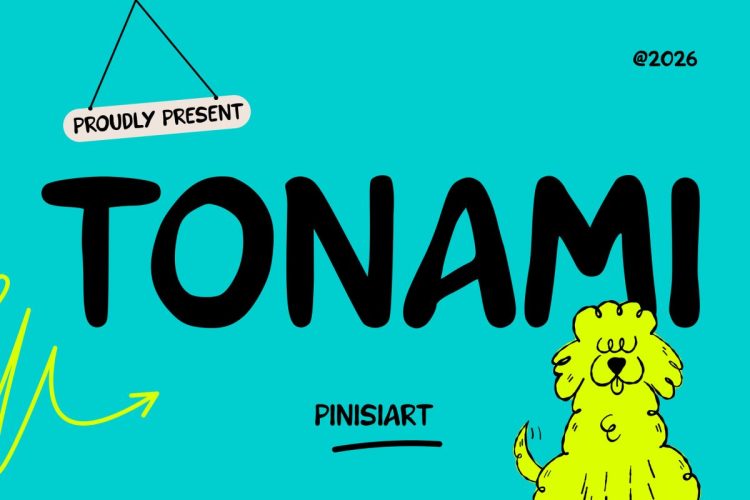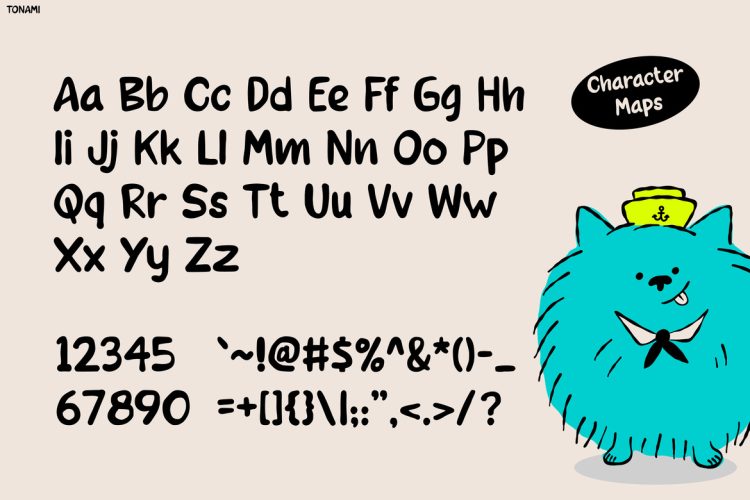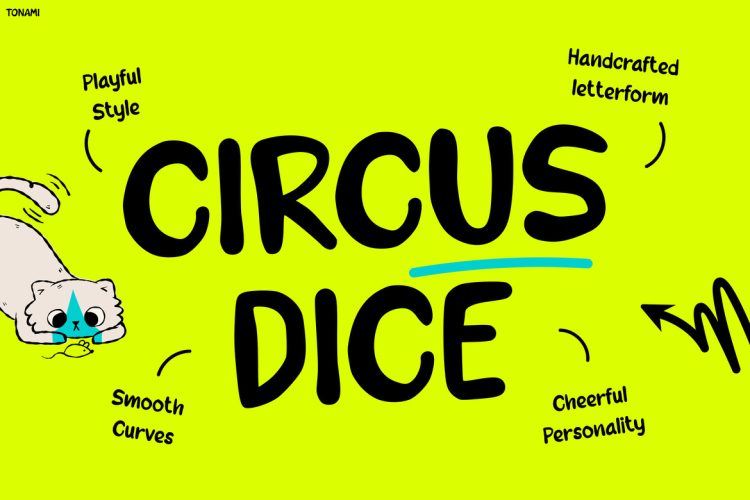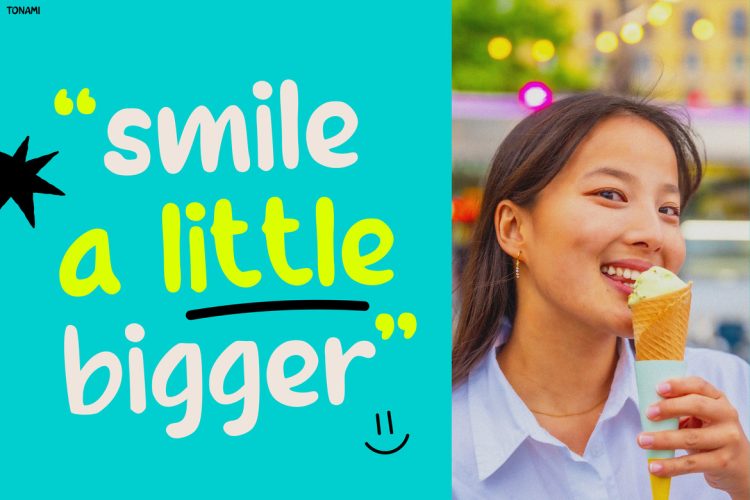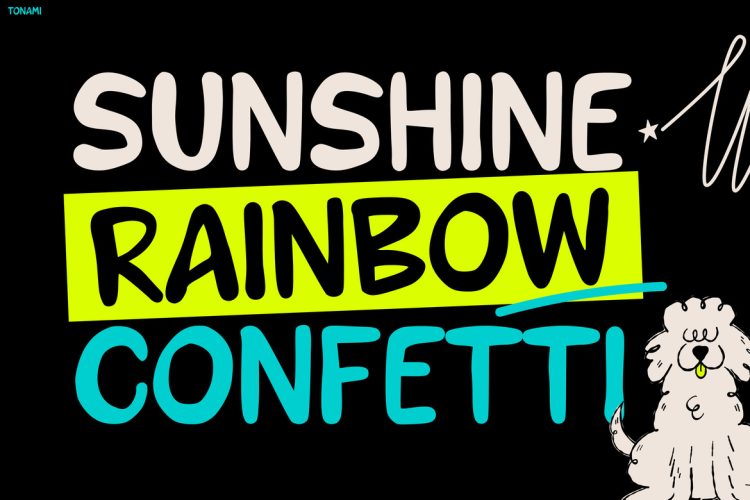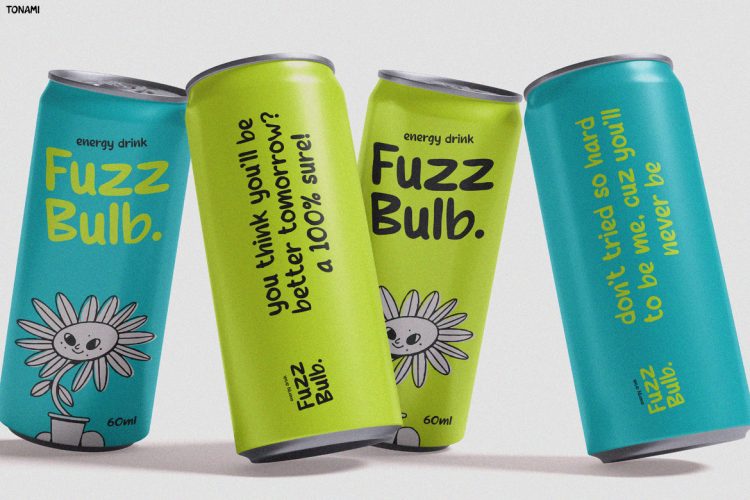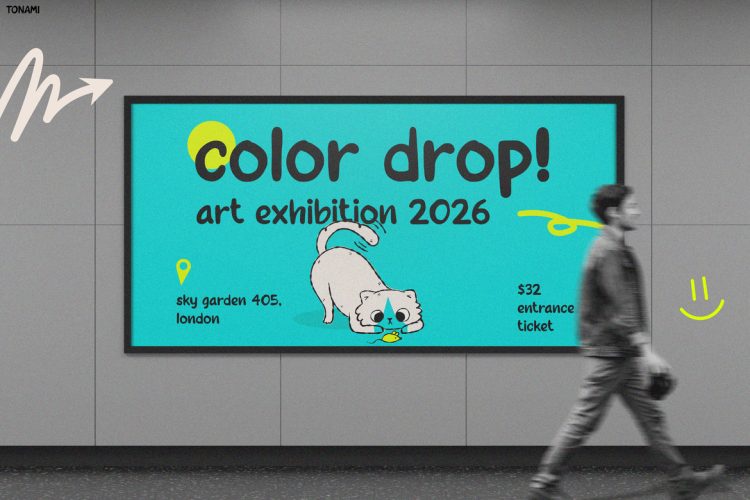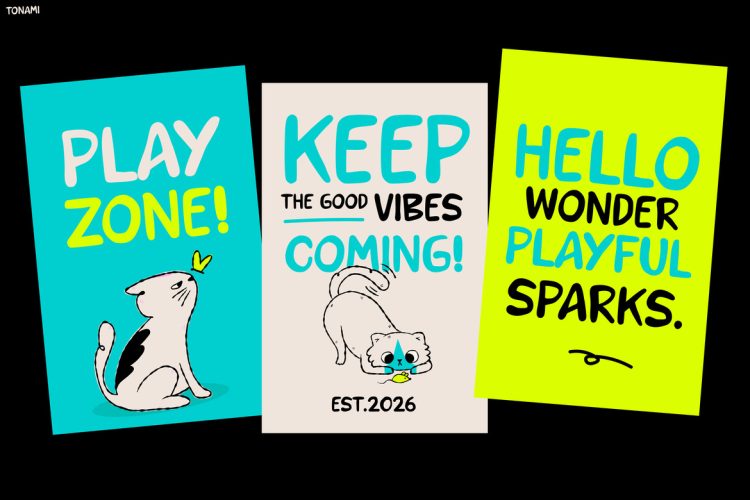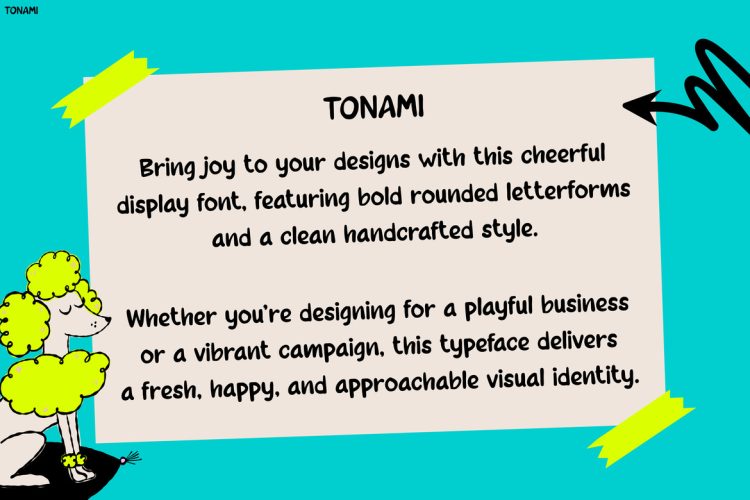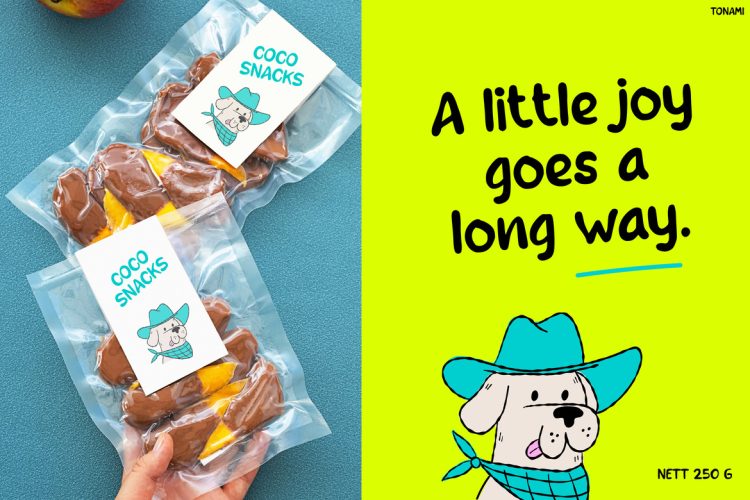
Kids Font Tonami โ Bright Colors. Big Smiles. Endless Fun.
Kids Font Tonami brings cheerful energy to every design with its playful handwritten style, rounded letterforms, and lively personality. Unlike ordinary kids fonts, Tonami blends bold, friendly shapes with a natural handcrafted feel, so every word looks warm, expressive, and full of imagination. Moreover, the balanced proportions keep every headline easy to read, while the fun character adds instant charm to both print and digital projects. As a result, your artwork feels more engaging and memorable. In addition, Tonami helps transform simple layouts into colorful experiences that instantly capture attention. Whether you’re creating for children, families, or playful brands, this font keeps every message bright, friendly, and full of life.
Made for Joyful Designs and Creative Brands
Kids Font Tonami gives designers an easy way to create fun visuals with a warm and approachable personality. Not only does it make headlines stand out, but it also adds playful emotion to every project. Furthermore, it works beautifully for kids branding, toy packaging, snack labels, children’s books, classroom materials, educational resources, birthday invitations, cafรฉ menus, colorful posters, stickers, social media graphics, event promotions, and merchandise. Meanwhile, its handcrafted appearance feels authentic, while its clean structure keeps every composition readable. Consequently, every design looks energetic, welcoming, and ready to make people smile.
Kids Font Tonami Perfect For
- Kids branding
- Children’s books
- Toy packaging
- Snack & candy packaging
- Educational materials
- Birthday invitations
- Classroom decorations
- Posters & stickers
- Social media graphics
- Cafรฉ & bakery branding
Bring Every Design to Life
If you want typography that spreads happiness from the very first glance, Kids Font Tonami is ready to deliver. Furthermore, its playful character creates an instant connection with audiences of all ages. At the same time, its clean construction keeps every design polished and versatile. Therefore, your projects feel more vibrant, memorable, and enjoyable. Finally, choose Tonami today and let every creative idea shine with playful confidence.